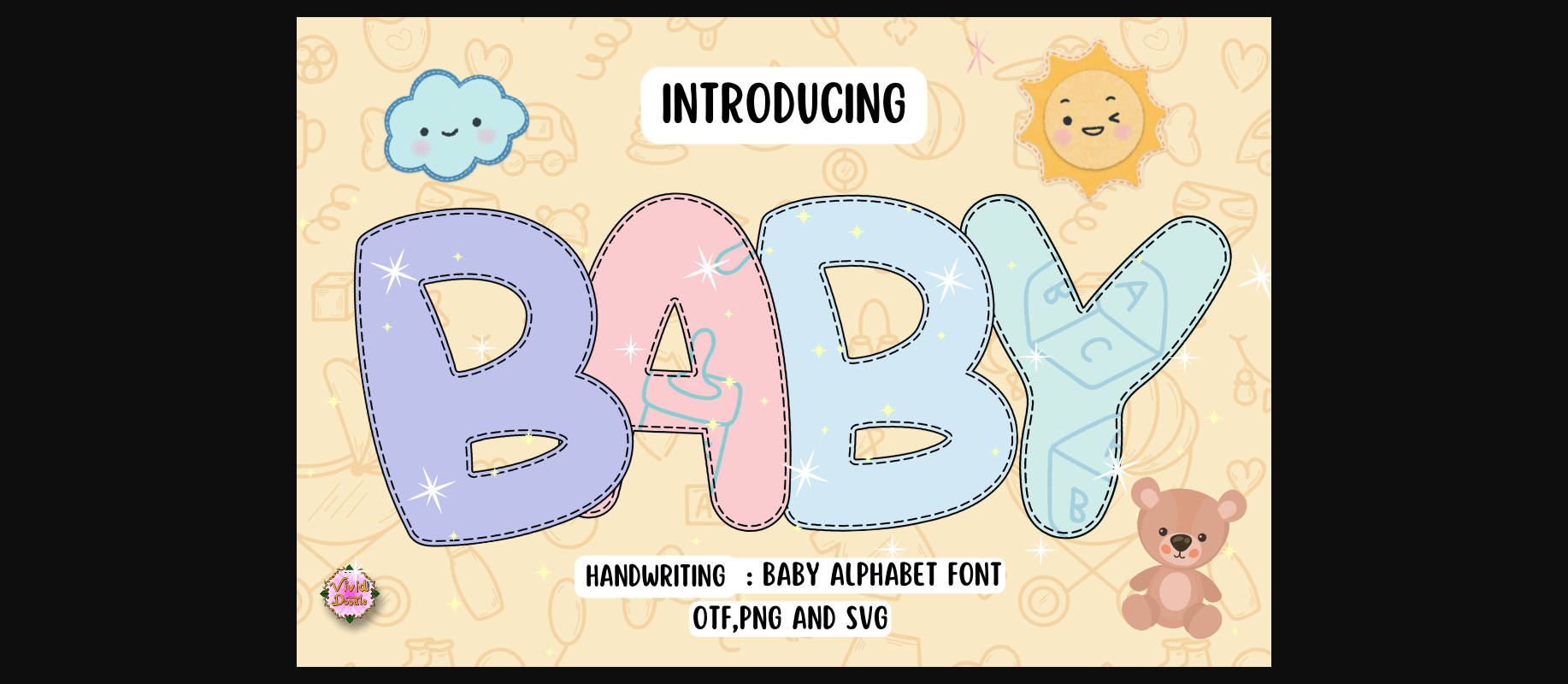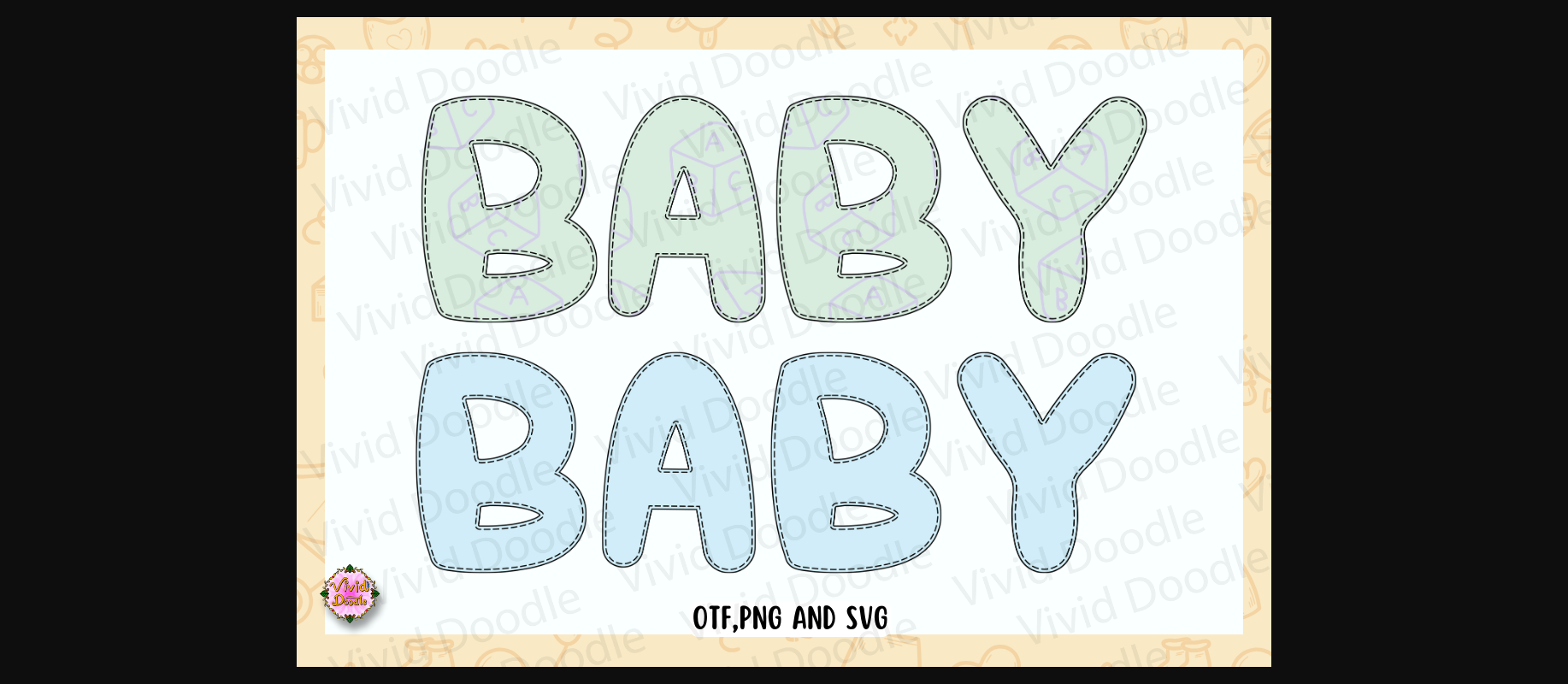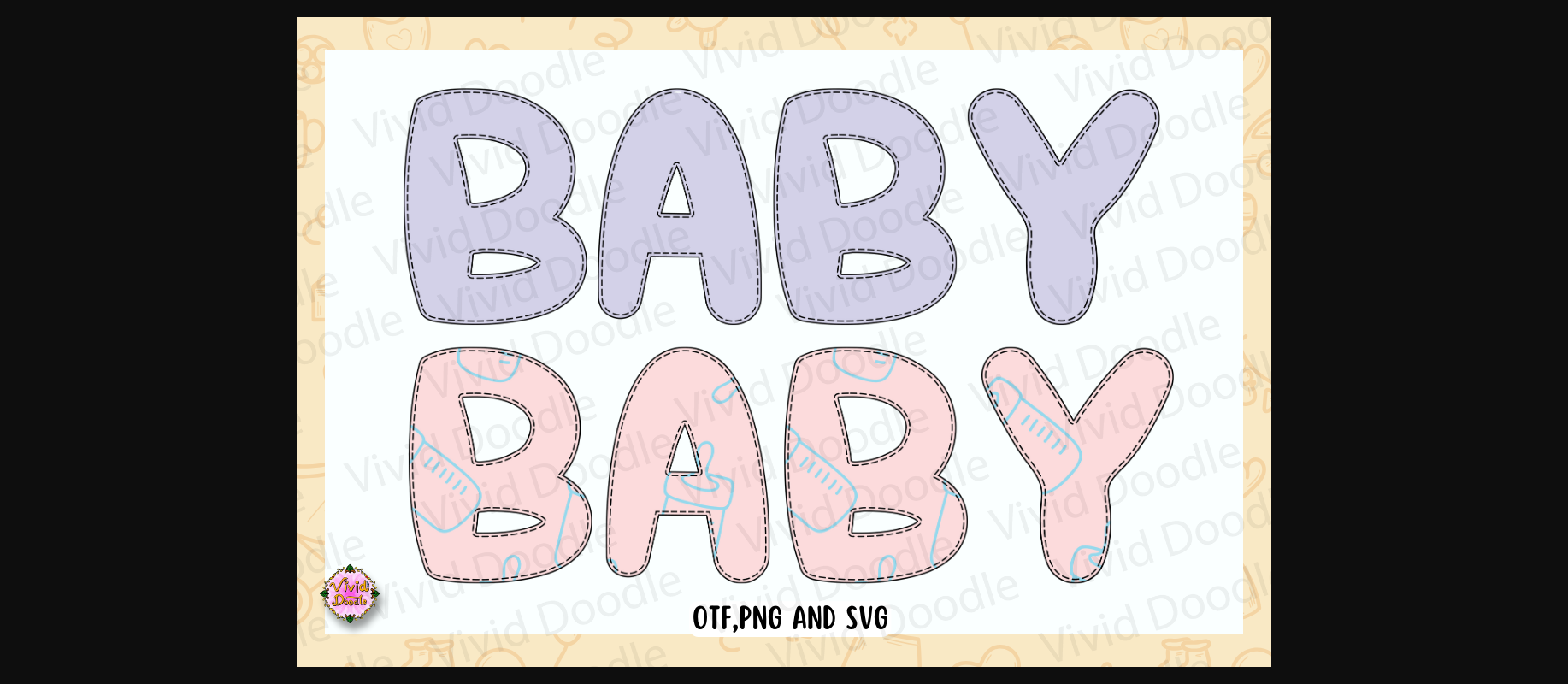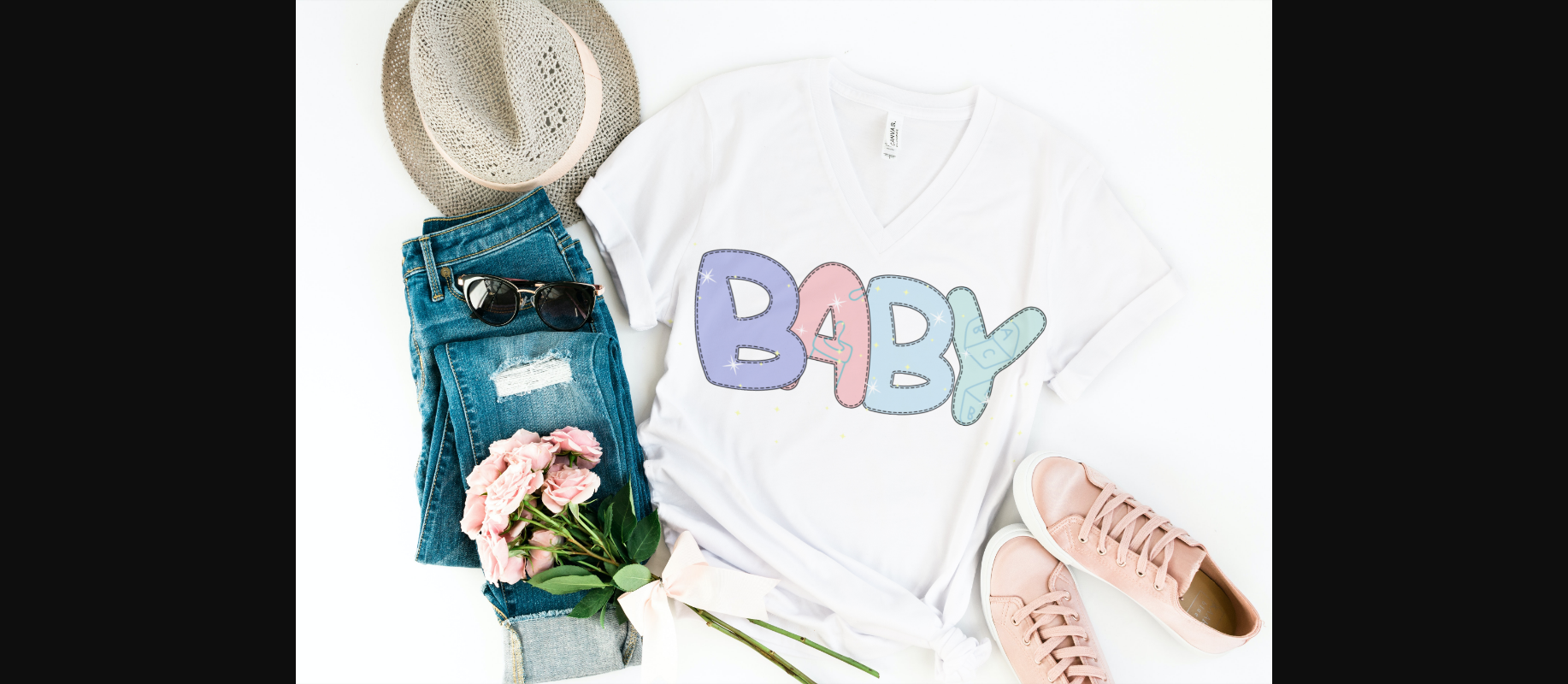
About Baby Alphabet Font
A pastel baby font is a soft, whimsical typeface characterized by gentle, rounded letterforms with thin strokes. Often featuring pastel colors and playful elements, it exudes a cute, friendly, and innocent aesthetic, making it ideal for baby-related designs like invitations, announcements, or nursery decor. The cursive or handwritten style adds a personal touch while maintaining readability for versatile applications.